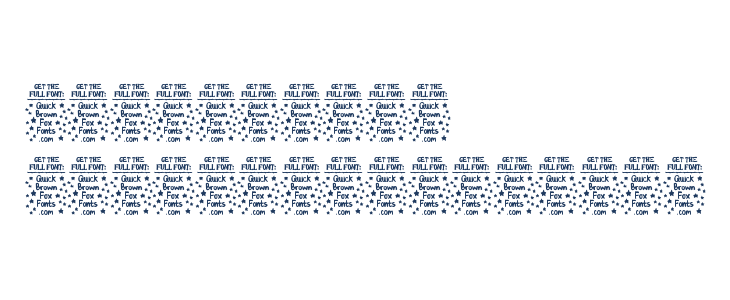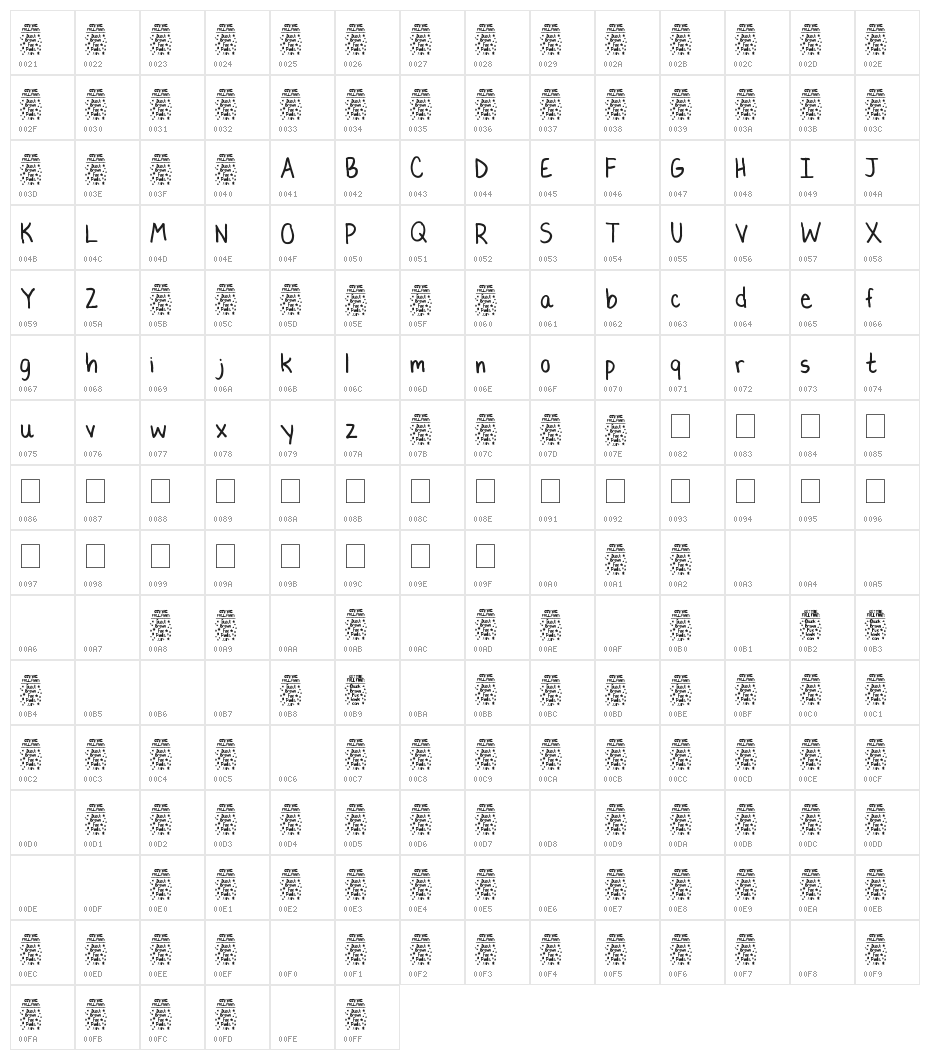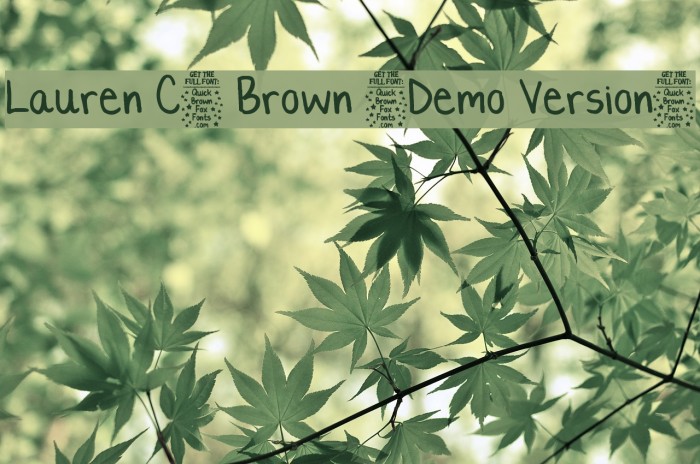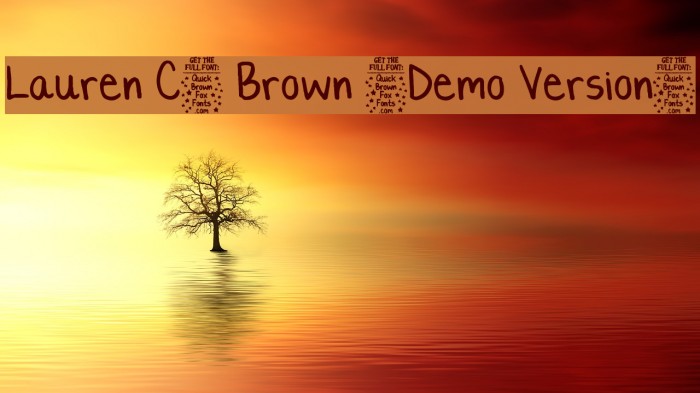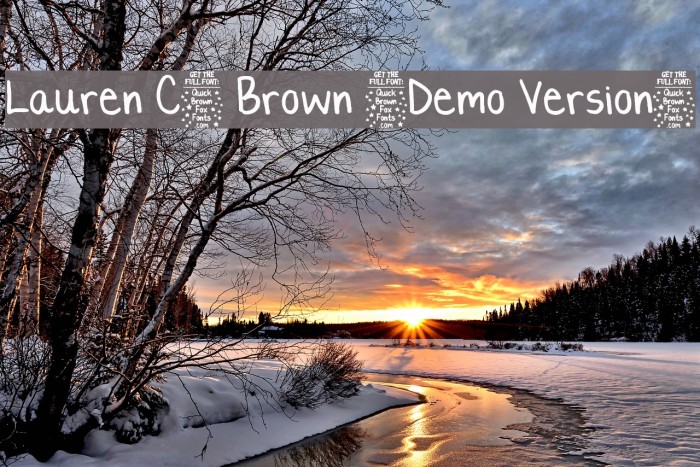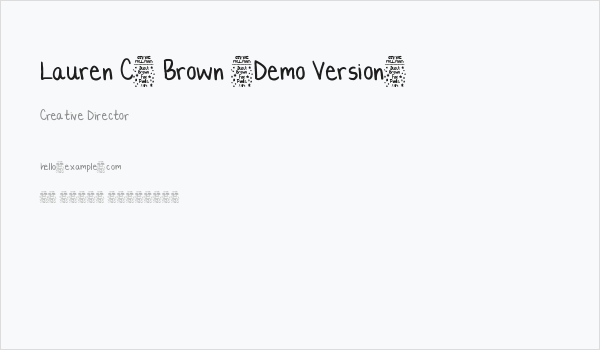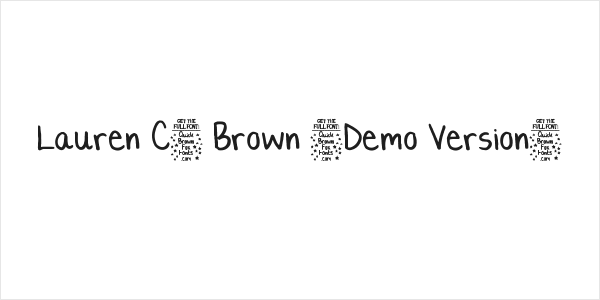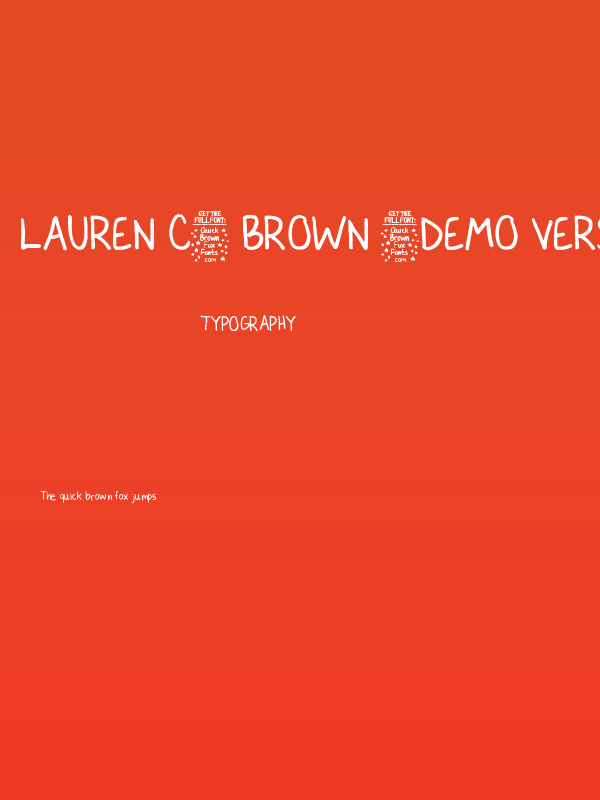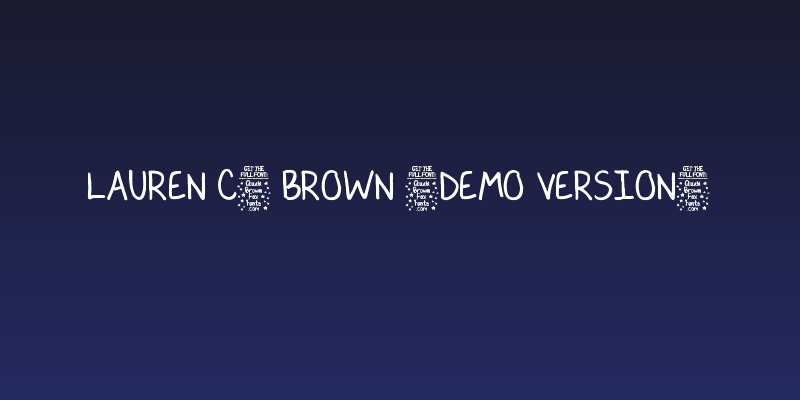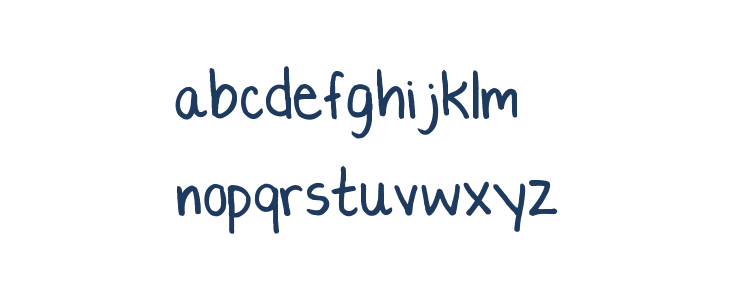
Lauren C. Brown [Demo Version] Font
Lauren C. Brown [Demo Version] Description
This font features a playful, handwritten style with a casual and friendly appearance. The letters are slightly irregular, giving it a natural and organic feel. The uppercase and lowercase characters maintain a consistent style, with rounded edges and a slight tilt that adds to its informal charm. The numerals and special characters are designed to match the overall aesthetic, making it versatile for various uses. The font's legibility is high, even at smaller sizes, making it suitable for both print and digital media. Its unique personality makes it ideal for projects that require a personal touch.
| Use Case | Headlines, Informal text, Personal projects |
| Proposed Projects | Ideal for greeting cards, personal blogs, children's books, and informal branding. |